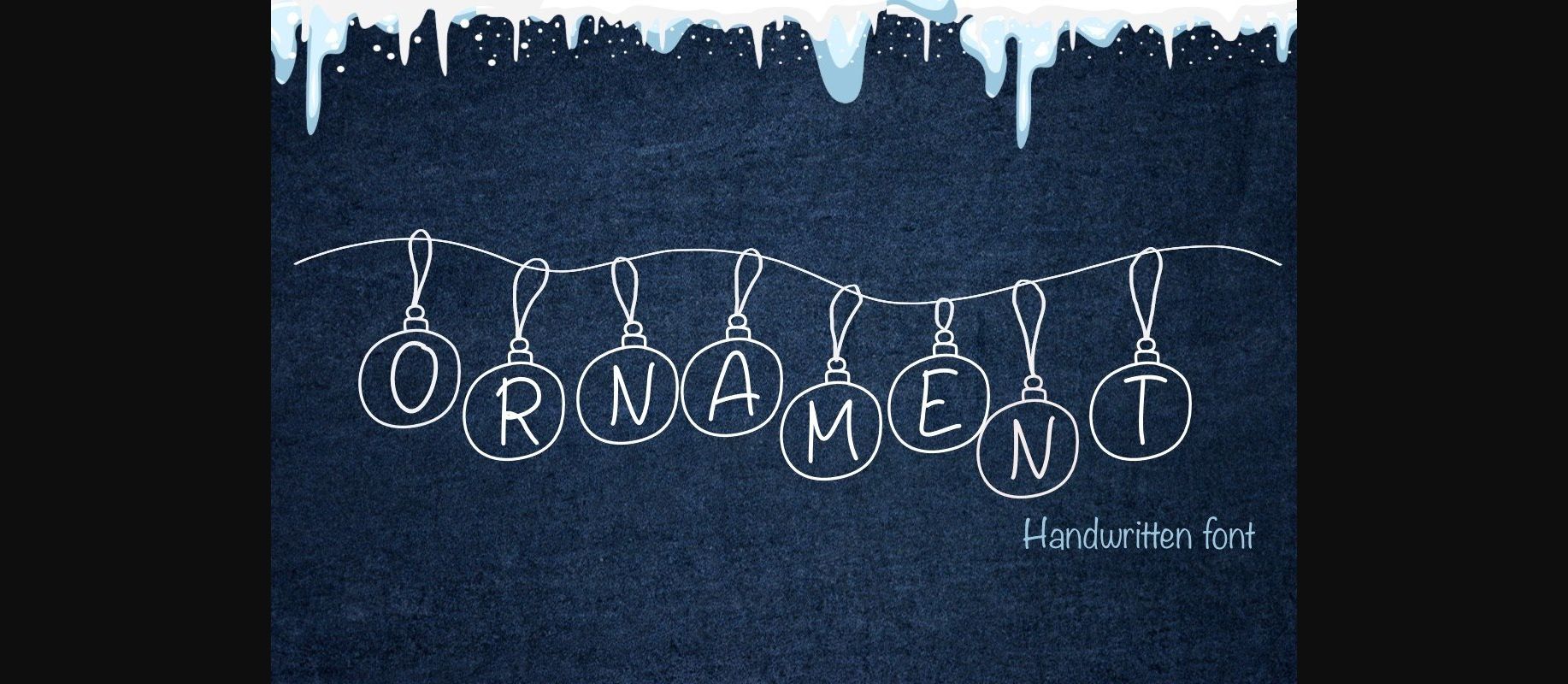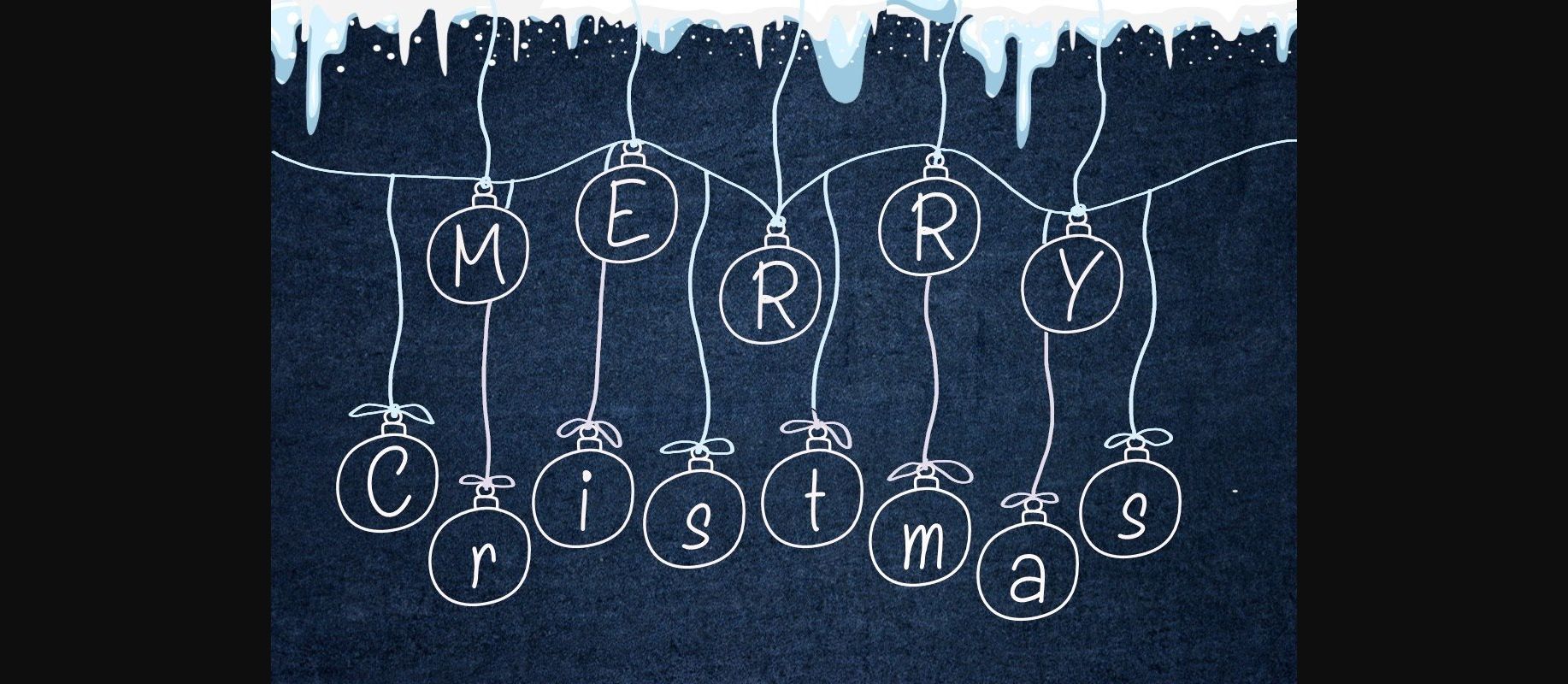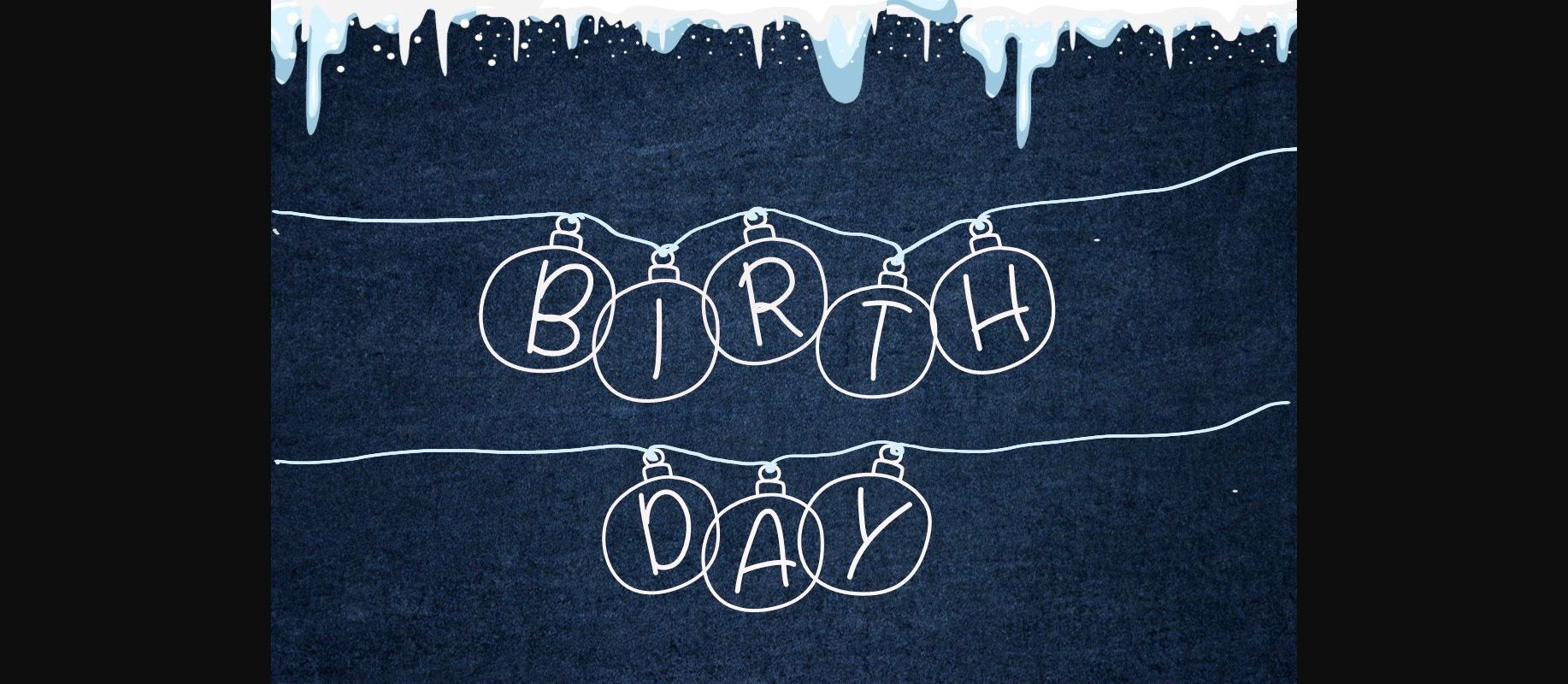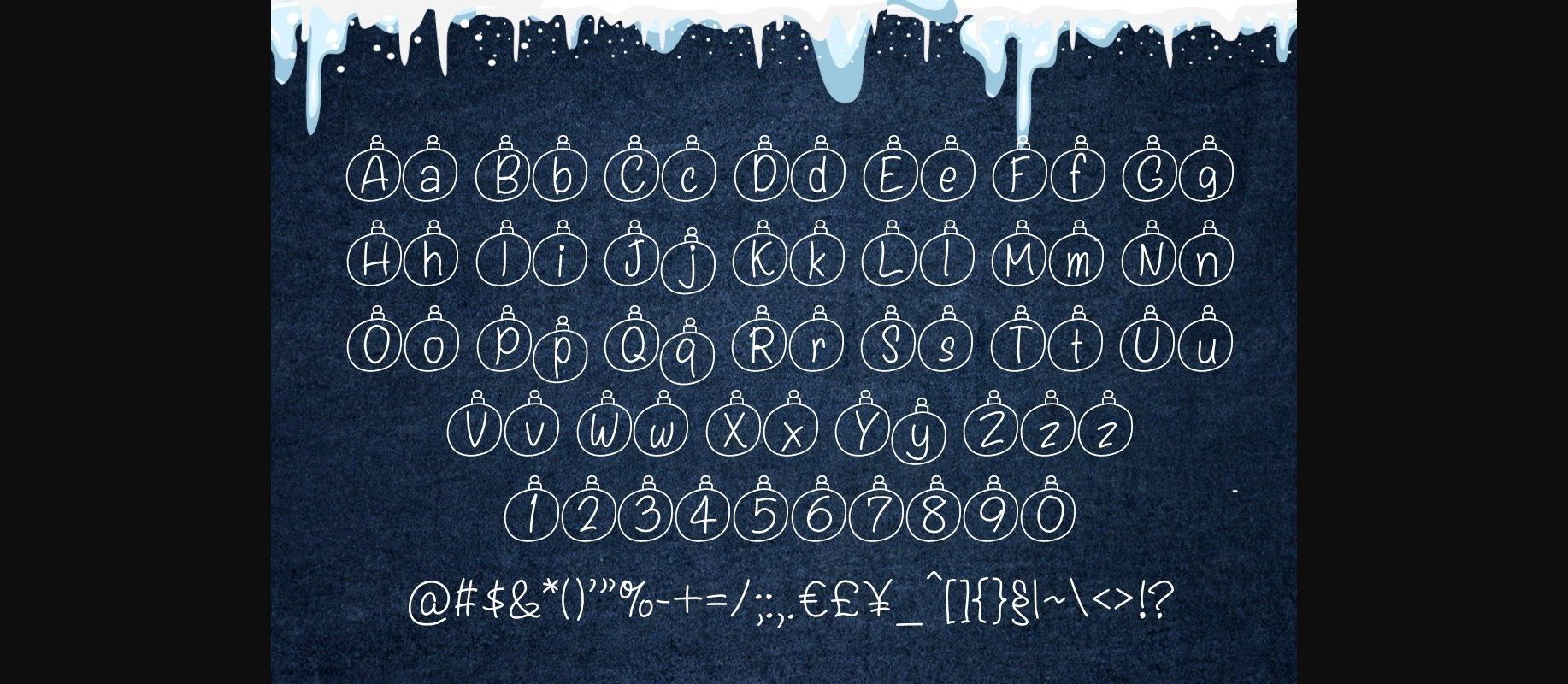
Ornament Font
About Ornament Font
Ornament is sweet and festive handwritten decorative font. Add it to your Holiday crafty ideas and you will love the results!